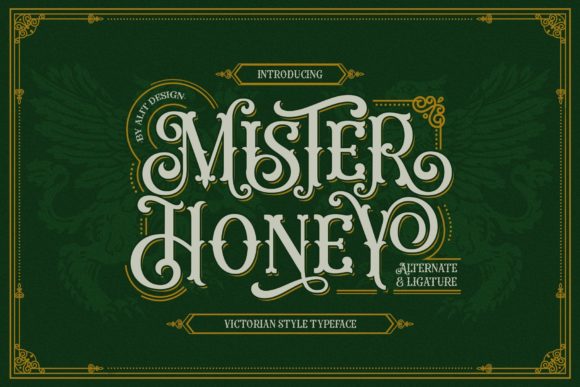
Introducing the sensational Mister Honey Font, a captivating blackletter font designed by Alit Design. If you're seeking the best font for complaint letters, look no further! This font is not only visually stunning but also packed with emotions that will leave a lasting impression on your readers.
With its Victorian charm and distinct style, Mister Honey Font sets itself apart from the ordinary. Every letter is meticulously crafted, boasting uniquely shaped characters that exude elegance and sophistication. This font is truly a work of art and will elevate any design project to new heights.
One of the standout features of Mister Honey Font is its ease of use. Being PUA encoded, accessing all the glyphs and swashes is a breeze. You'll have endless possibilities to personalize your creations and make them truly one-of-a-kind. Say goodbye to limitations and unlock your creative potential with this remarkable font.
Whether you're crafting a complaint letter, designing a logo, or creating eye-catching social media graphics, Mister Honey Font is the perfect companion. Its versatility shines through as it effortlessly adapts to various design needs. Let this font be the voice of your words, conveying your message with grace and impact.
Imagine the reactions you'll elicit from your audience when they lay eyes on your complaint letter or brand identity. They won't be able to resist the allure of Mister Honey Font. It adds an air of nostalgia and prestige, instantly grabbing attention and leaving a lasting impression.
Experience the power of Mister Honey Font and let your creativity soar. Unleash the emotions, break free from the ordinary, and create designs that are truly extraordinary. Take the first step towards design greatness and give your projects the edge they deserve.